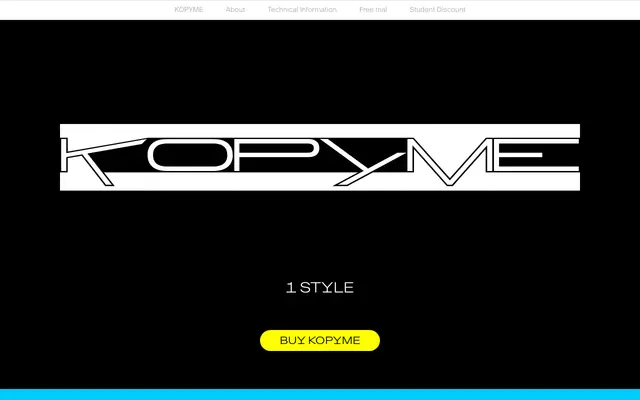
Kopy Me
A display typeface by Liudmila Bredikhina for Swiss Typefaces, derived from the BRRR Typeface with art direction by the foundry.
Designed by Liudmila Bredikhina under art direction from Swiss Typefaces, Kopy Me draws its formal starting point from the BRRR Typeface. Font engineering was handled by Christoph Koeberlin. The page provides minimal detail on weights or language coverage, pointing to a tightly focused display release rather than a broad text family.
Kopy Me is described as based on the BRRR Typeface, suggesting a display-oriented design with strong visual character; the display category fits its art-directed, expressive origins.